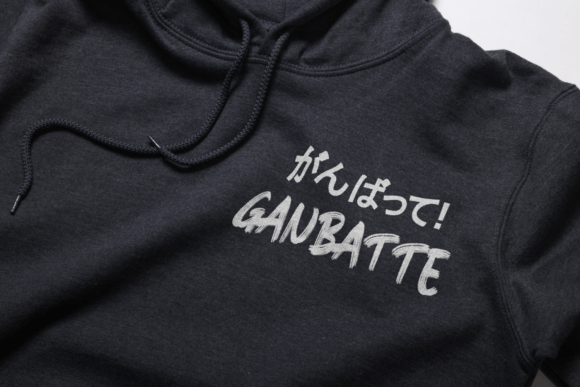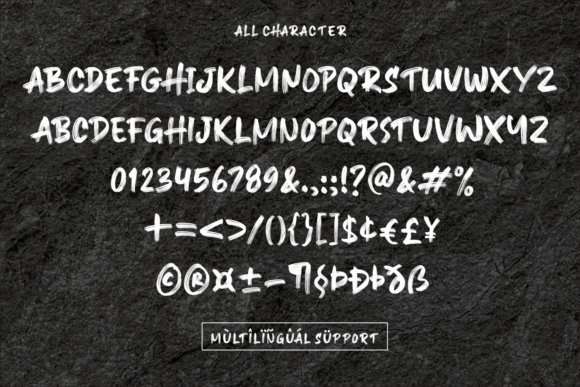
Inspire Font
Inspire is bold, tightly spaced, and retains all of the brush imperfections.
It has a nice contrast with opaque parts and transparent ones.
It will give your work an authentic and realistic paintbrush look!